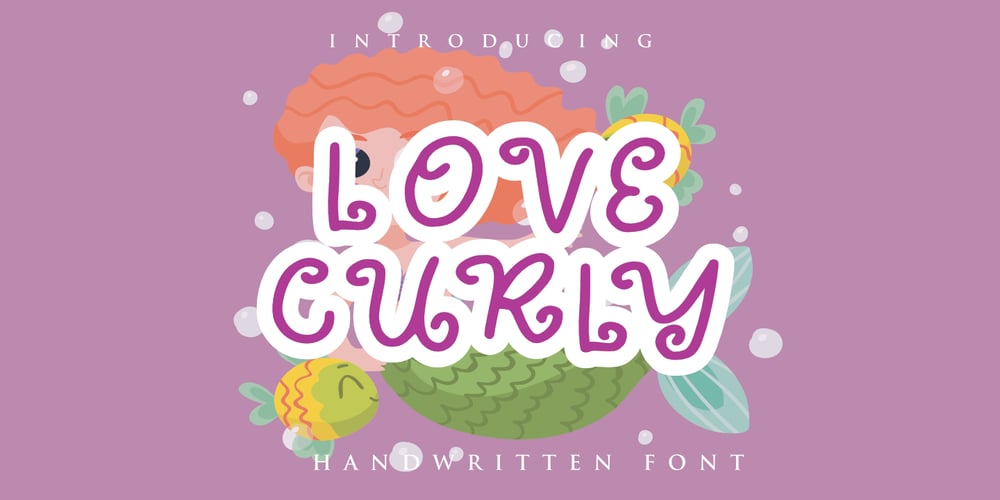
Love Curly Font Family was designed by Mariyana and published by Goodigital13. Love Curly contains 1 styles and family package options. Perfect use for a logo for branding, typography design, christmas card, product packaging, invitation, quotes, t-shirt design, label poster, special events and anything that need elegant taste.great for Logotype, Branding Design, Logo Design, Digital Lettering Arts, T-Shirt/Apparel, Poster, Magazine, Signs, Advertising Design, and any vintage design needs.Caps only Fonts